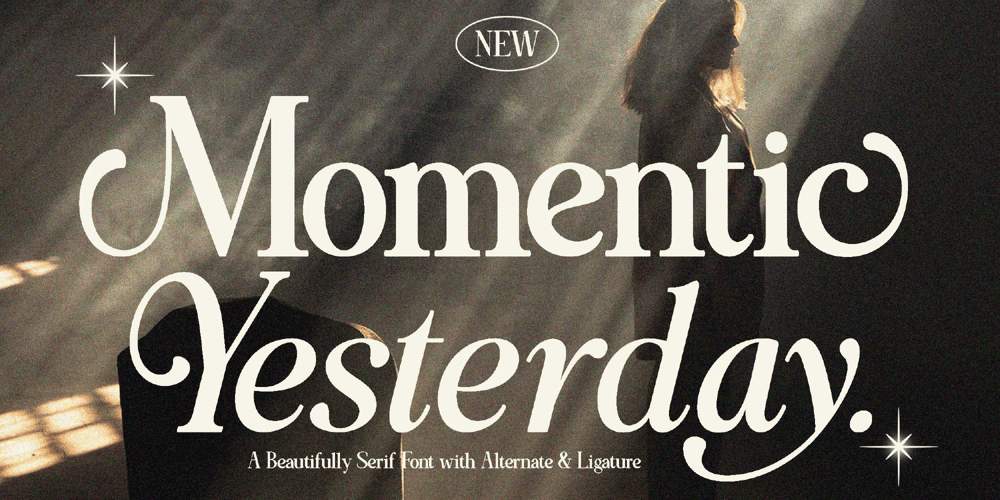
Momentic Yesterday Font Family was designed by Achmad Yani and published by Flawlessandco. Momentic Yesterday contains 2 styles and family package options. Momentic Yesterday is a Modern Font Duo that contains Serif and Italic Typeface also gives a feel of Elegant font type.There’s some connected letters and some alternates that suitable for any graphic designs such as branding materials, t-shirt, print, business cards, logo, poster, t-shirt, photography, quotes .etcThis font support for some multilingual. Also contains uppercase A-Z and lowercase a-z, alternate character, numbers 0-9, and some punctuation.If you need help, just write me! Thanks so much for checking out my shop!